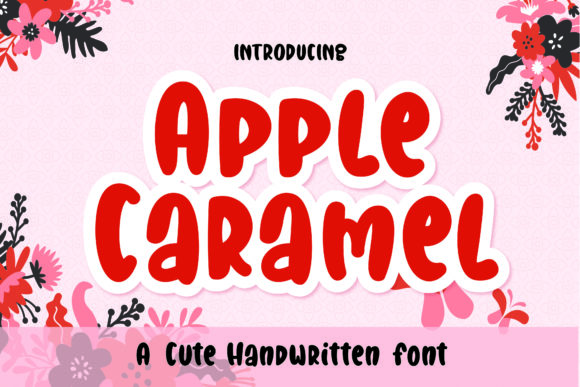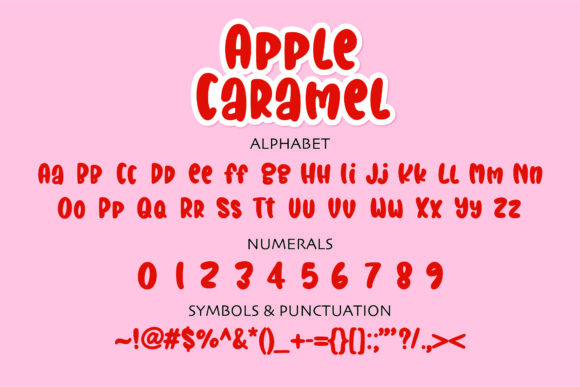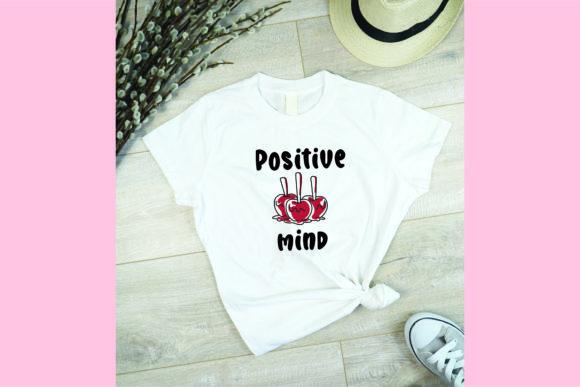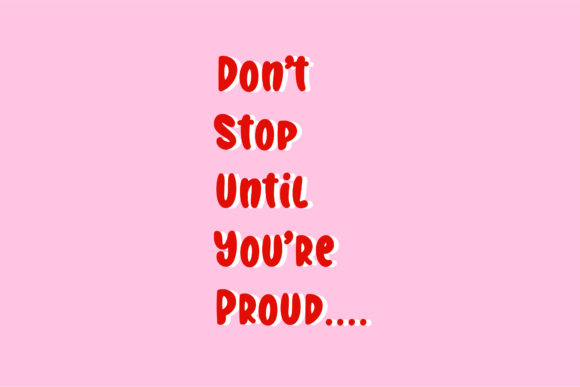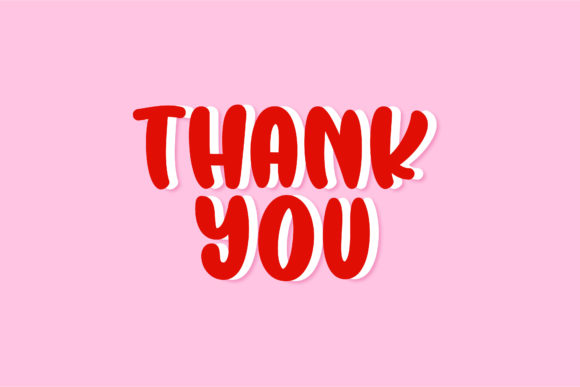
Apple Caramel Font
About Apple Caramel Font
Apple Caramel is a cool and trendy looking handwritten font. It will look stunning on any menu, poster, flyer or print.